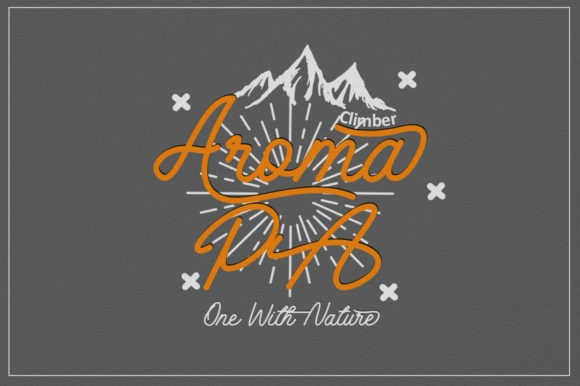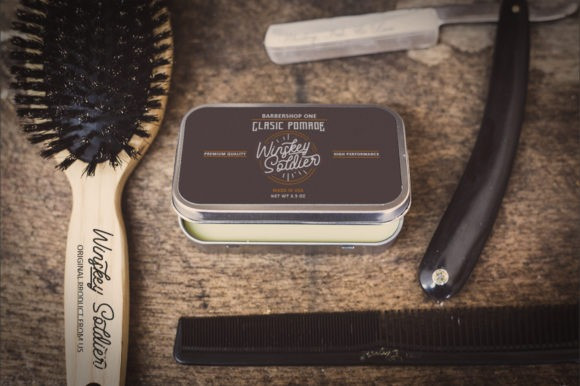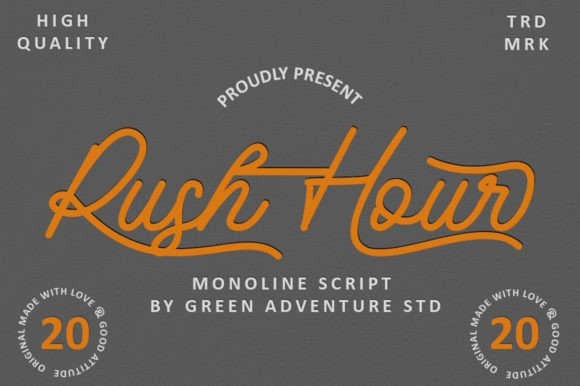
Rush Hour Script Font
Rush Hour feels playfully nostalgic and delivers an incredible vintage aesthetic. This handwritten font will add that special retro touch to any design idea you can think of!